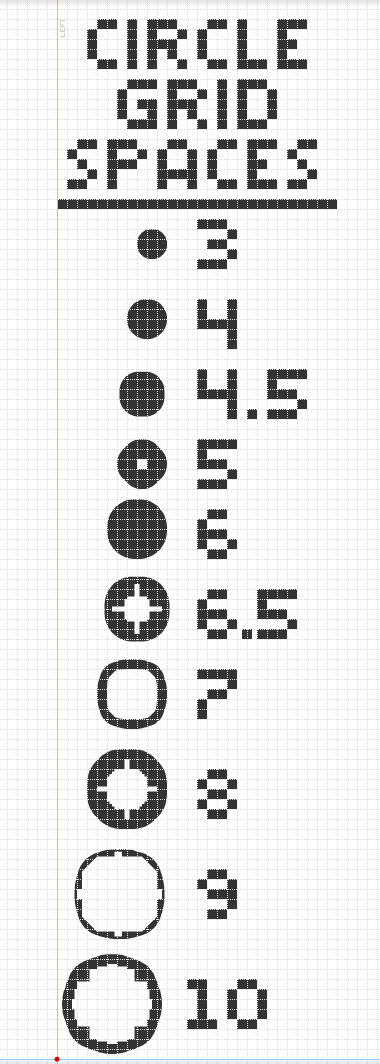
• Clone of even more curves. Thanks to j4s13 and opipik for starting these curve examples. I thought they were really helpful and I've gathered some of my own to add into the mix. These are approximations of circular shapes in larger grid spaces. None of these would be possible without using the 2x2 filter. The nudge tool has also opened up the possibilities for mixed curved shapes. Starting from A, the sizes go from 1 grid block up to larger ones. I've also added some incremental circles like 4.5 and 6.5 grid space. Most of these aren't perfect circles, but they're somewhat more accurate than going the faux bezier route. Feel free to improve upon the forms or create the larger sizes that haven't been displayed. 02.24.15 Added 2.5 and 3.5 sized circles 09.28.15 Added 10 variant, 12, 14 sizes 09.30.15 Added 11 size
I'll look at this to keep my mind from shattering into lighted C4 pieces... AMAZING!
Added 2.5 and 3.5 grid sized circles
Impressive collection! I've had a similar idea but little success as I don't use filters - unless I accidentally copied something from one of the tools/fonts? Also I have not organised them as neatly as you have.
Maybe I should publish and make you experienced people laugh ;) It can be my carnaval share *\o/*